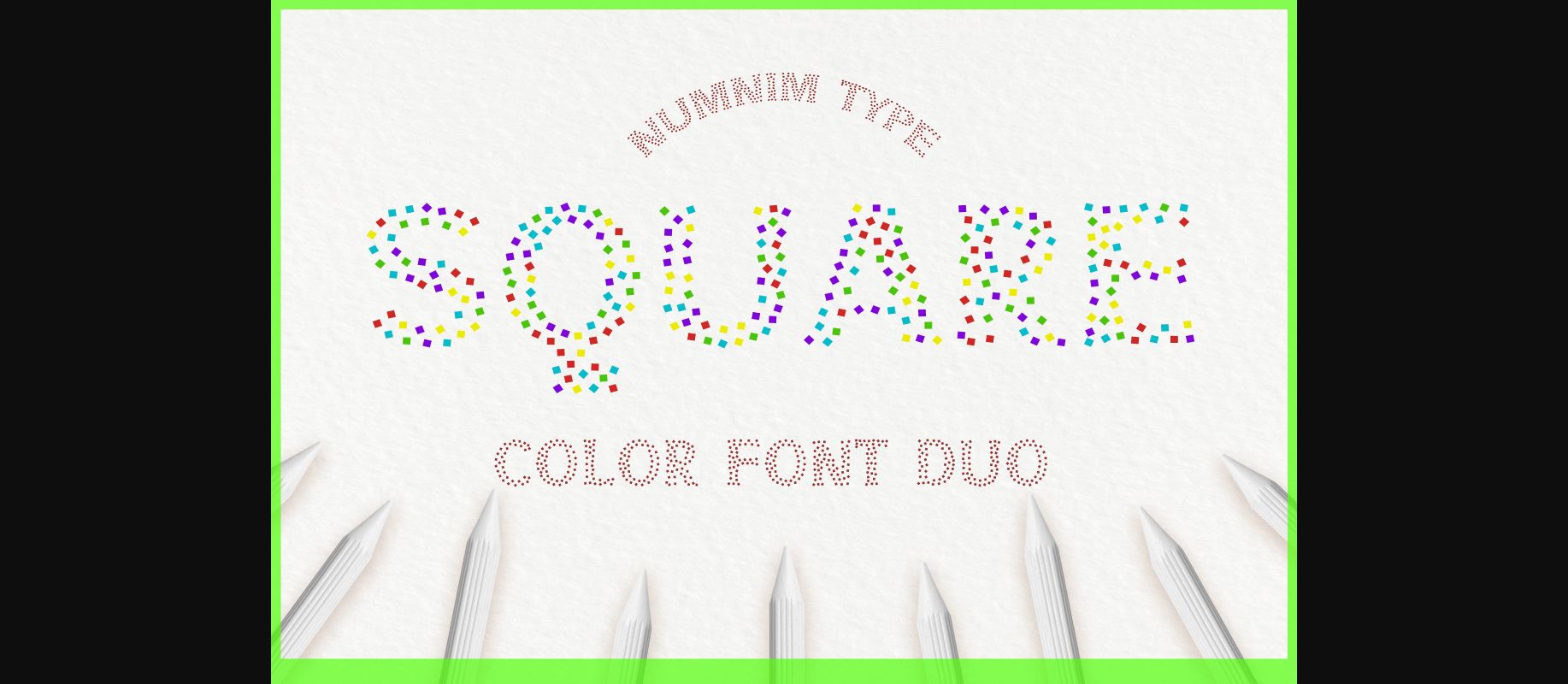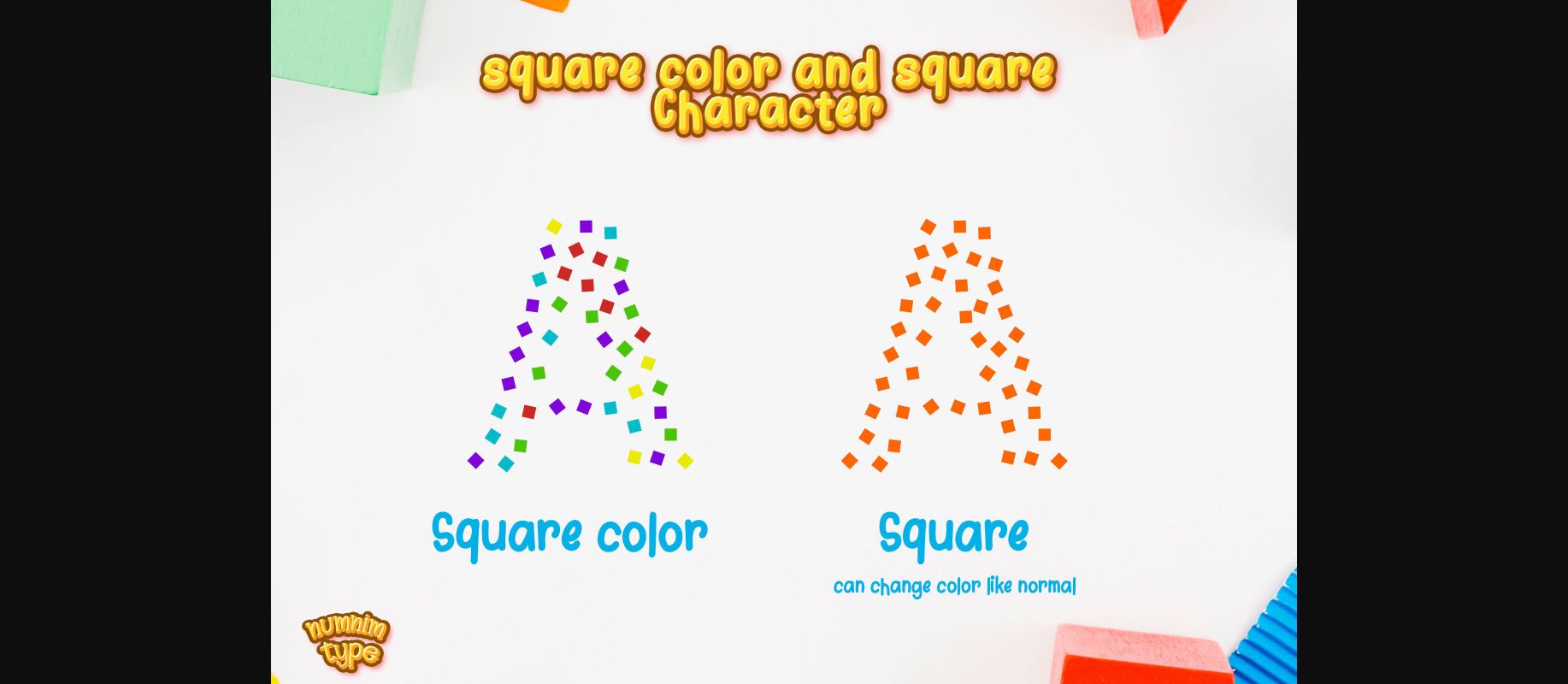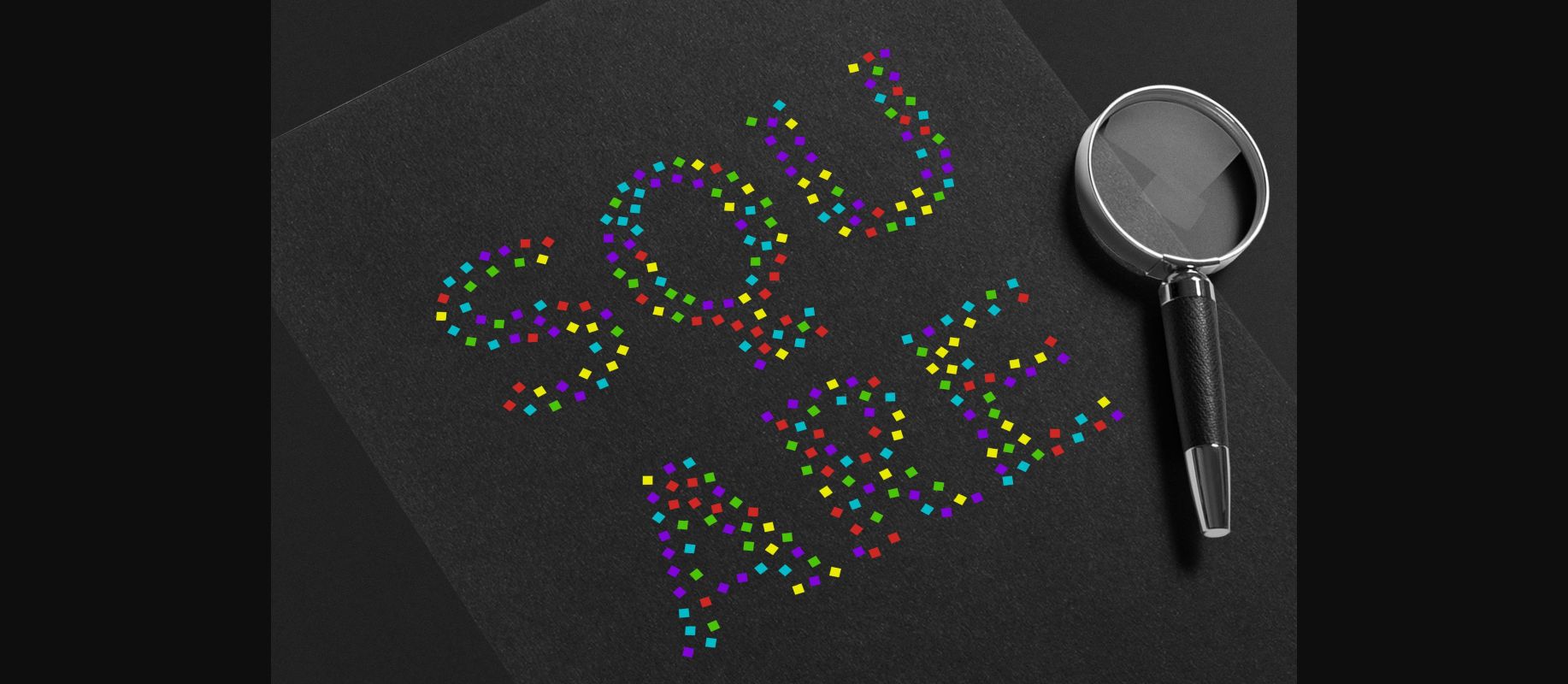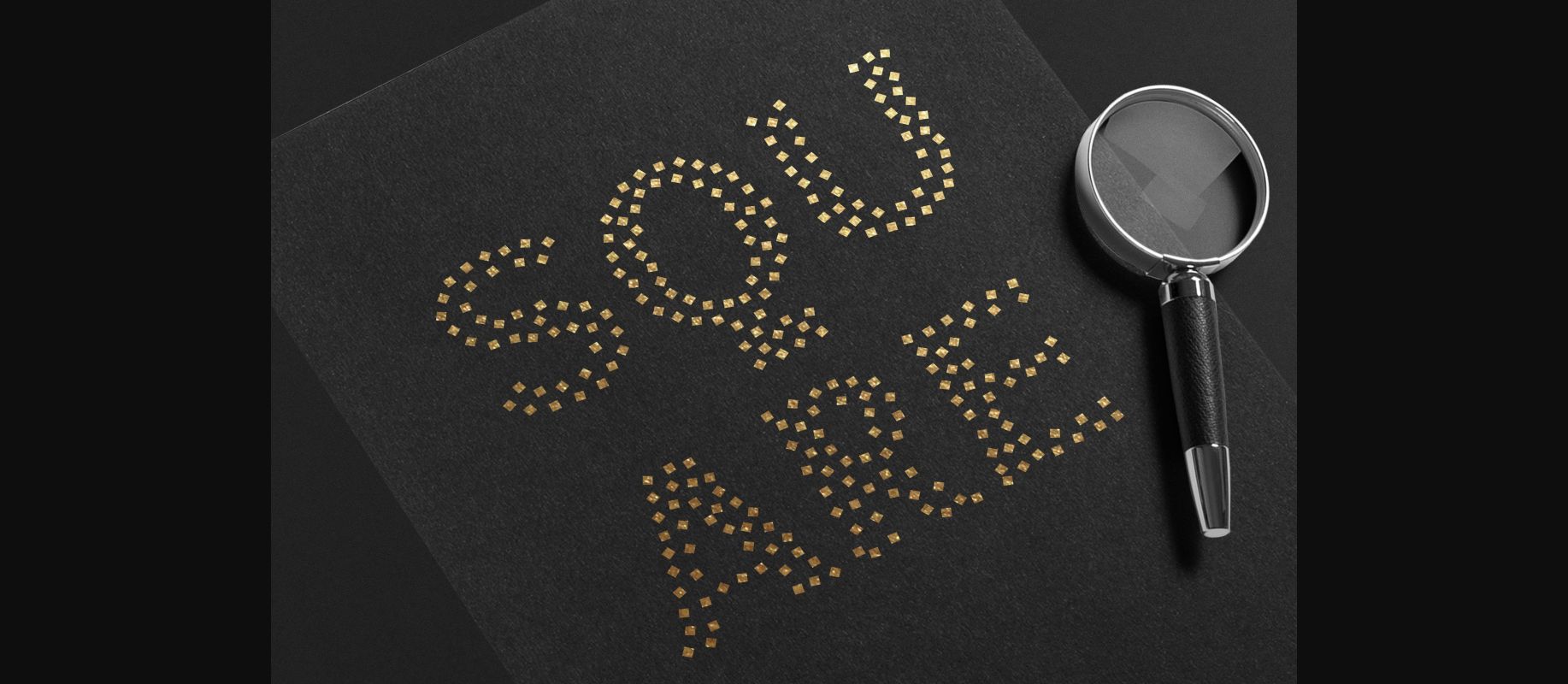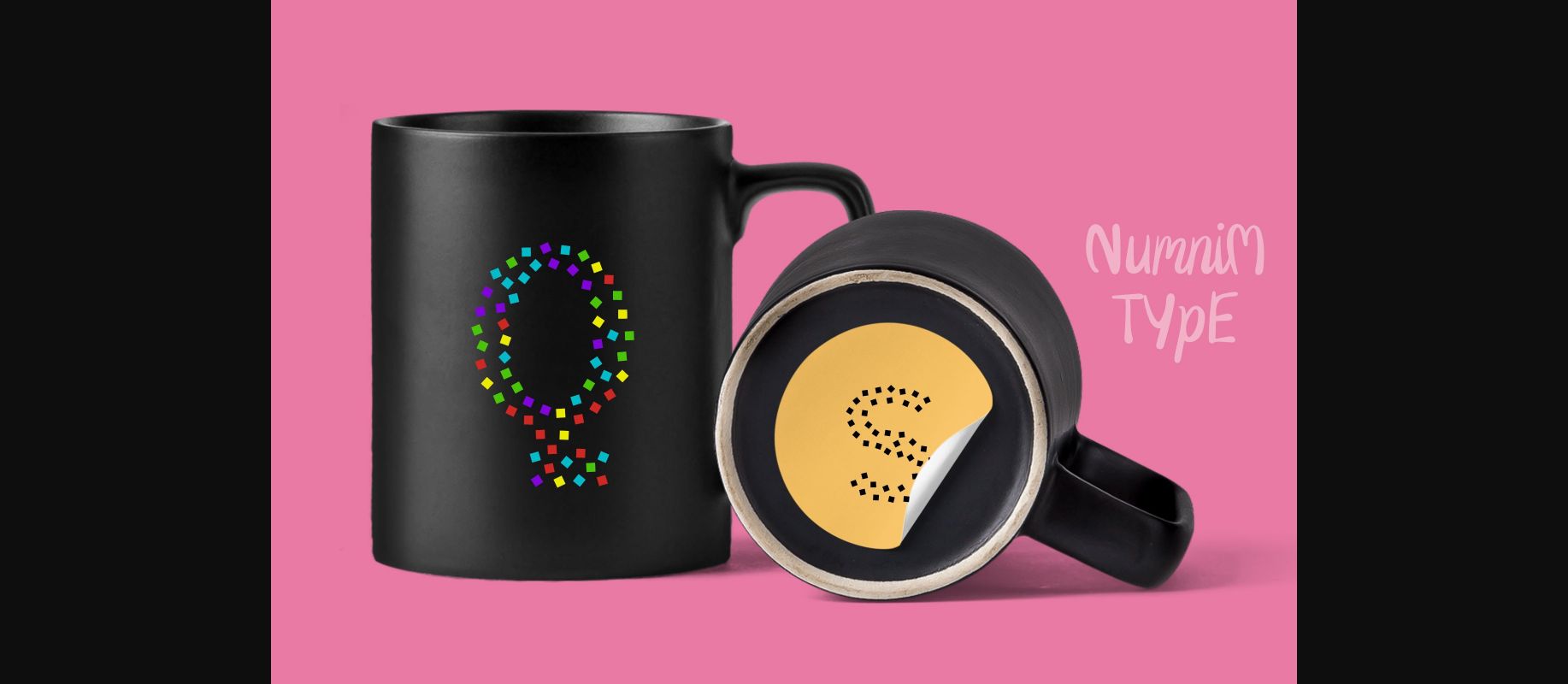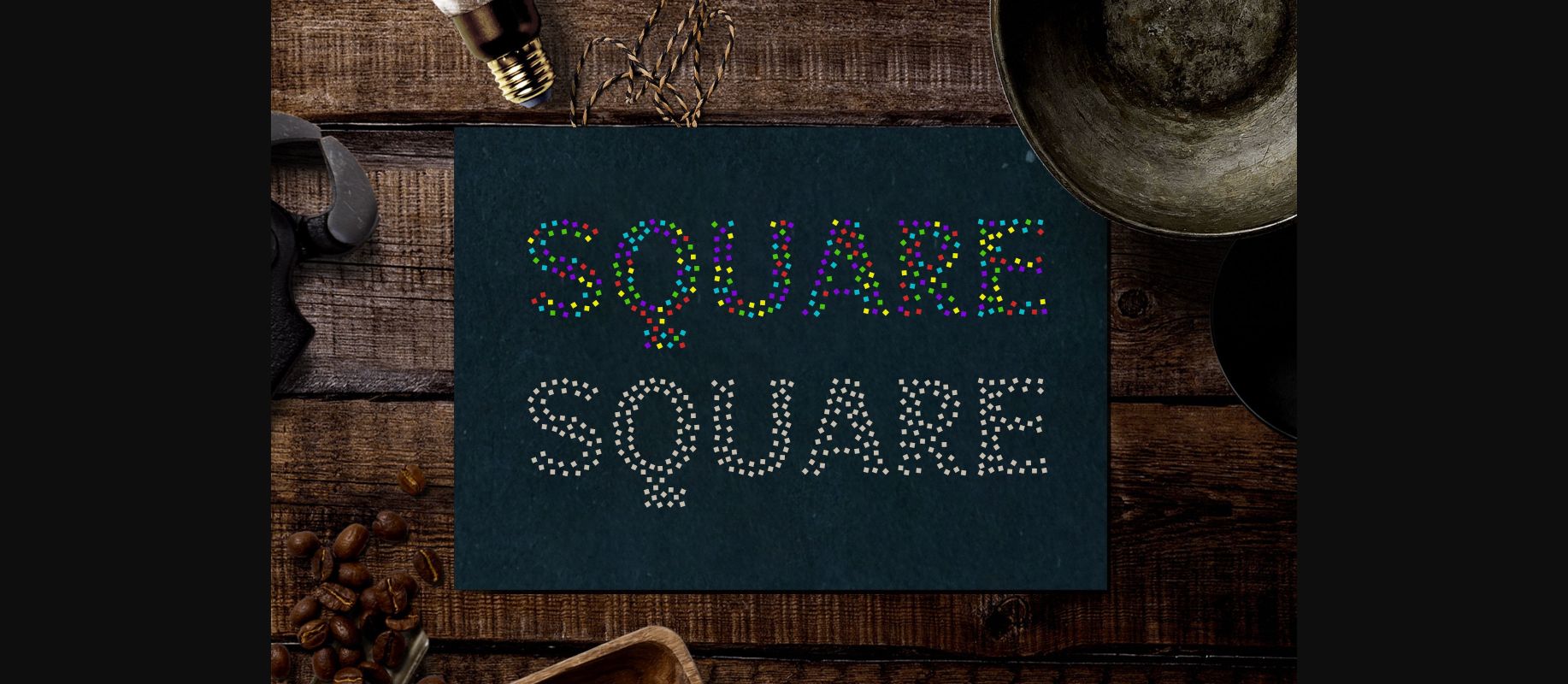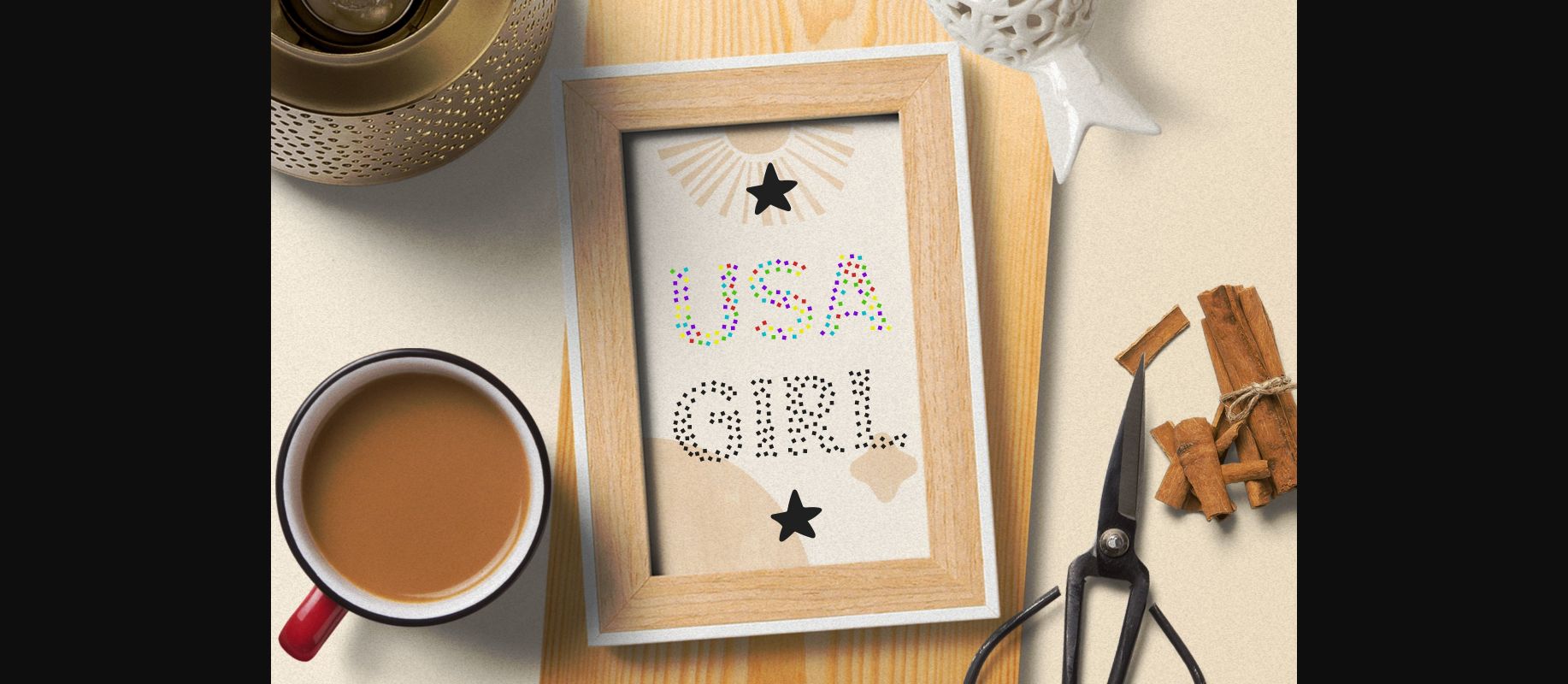
HomeDecorative FontsSquare Font Decorative Fonts Square Font FacebookXPinterestWhatsApp 1 of 10 ... Square Font Poster 2... Square Font Poster 3... Square Font Poster 4... Square Font Poster 5... Square Font Poster 6... Square Font Poster 7... Square Font Poster 8... Square Font Poster 9... Square Font Poster 10... About Square Font Square is a cool and fun decorative color font featuring characters made out entirely of small squares. This original look will appeal to a wide range of crafty ideas, from letterheads and titles to stationery. DOWNLOAD NOW People also explored Curly Funky Font Oberium Font Juvelith Font Bagota Los Font Shion Chinese Monogram Font Hallaway Font Tasikmoji Font Artemian Font Celebrities Font 291 0 TagsSquareSquare Font Previous articleSoccer FontNext articleTrick or Treat Font LEAVE A REPLY Cancel reply Comment: Please enter your comment! Name:* Please enter your name here Email:* You have entered an incorrect email address! Please enter your email address here Website: Save my name, email, and website in this browser for the next time I comment. Personal Use Free Bonifaciy Personal Use Free Read more about this font Rocketto Personal Use Free Read more about this font Darla Personal Use Free Read more about this font Knucklehead Personal Use Free Read more about this font BLOG Free vs Paid Fonts: Why Investing in Premium Fonts Is Worth It Free vs Paid Fonts: Why Premium Fonts Are Worth It in 2025 The debate of free vs paid fonts continues in the design world. While... The 10 Best Handwriting Fonts to Add Personality to Your Designs Fonts That Capture the Spirit of New York City Best Fonts for YouTube Videos: Make Your Thumbnails Stand Out